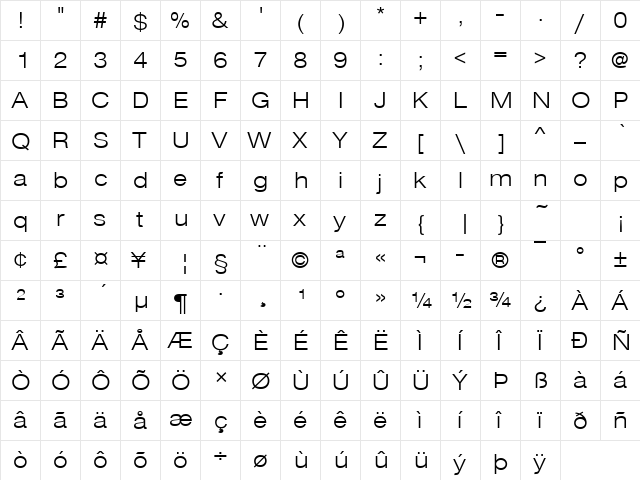
NimbusSanTLigExt Regular
Design Context for NimbusSanTLigExt Typeface
NimbusSanTLigExt is a composed and adaptable typeface that performs quietly and consistently across a wide range of design contexts.